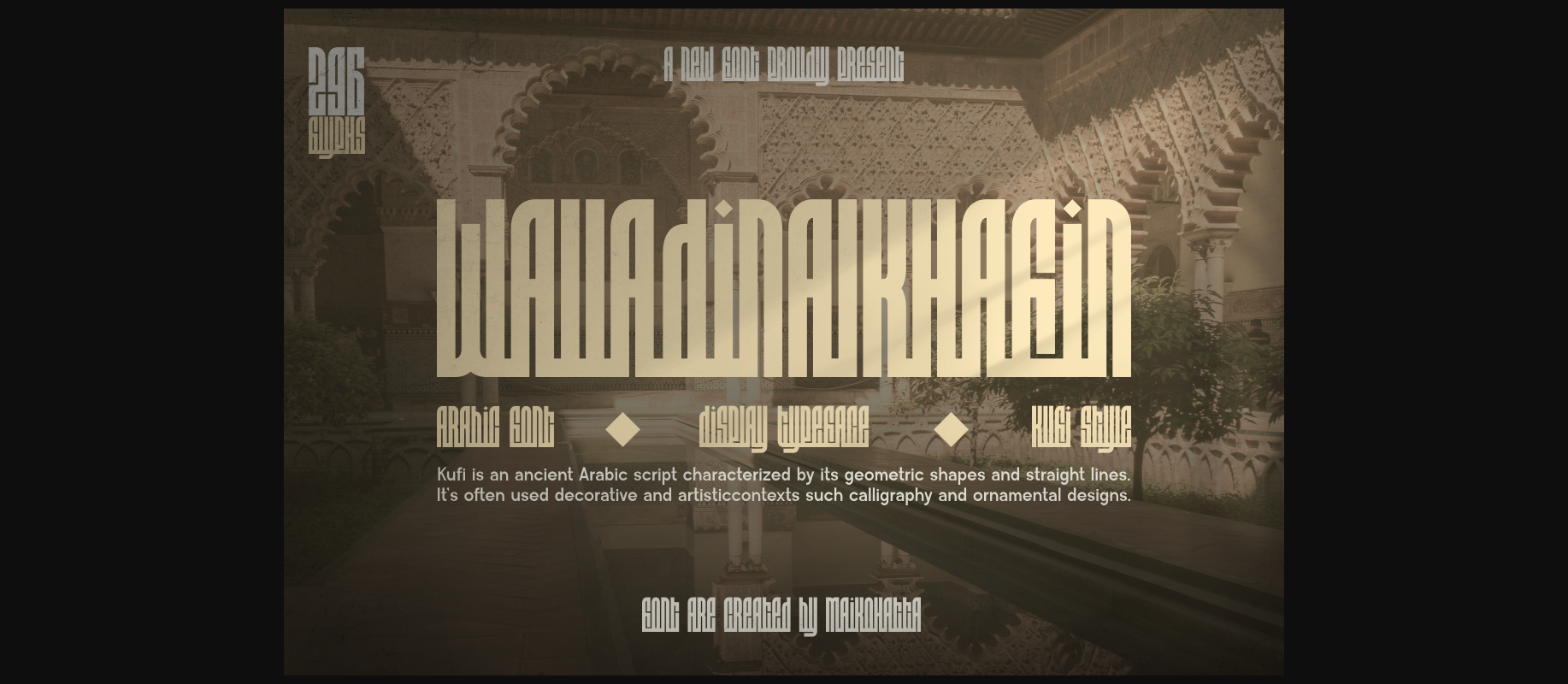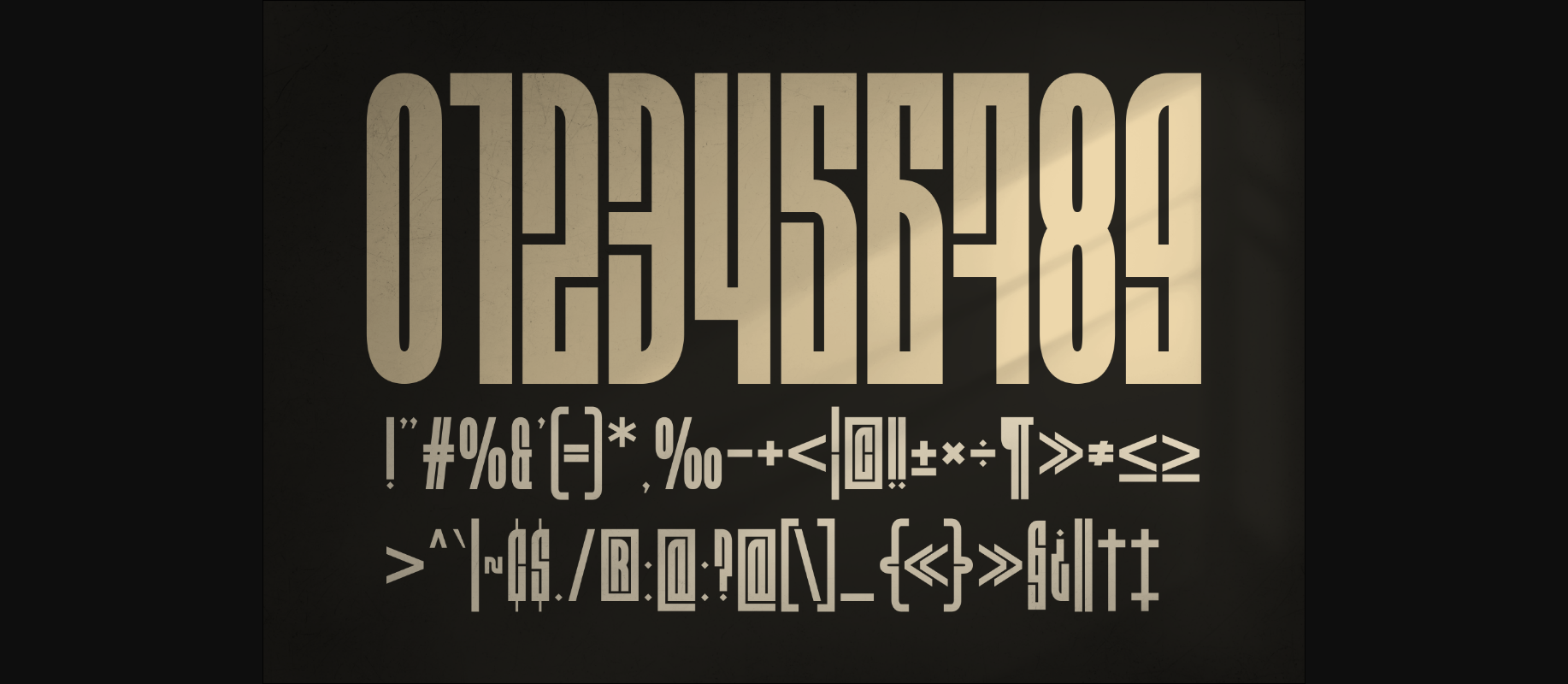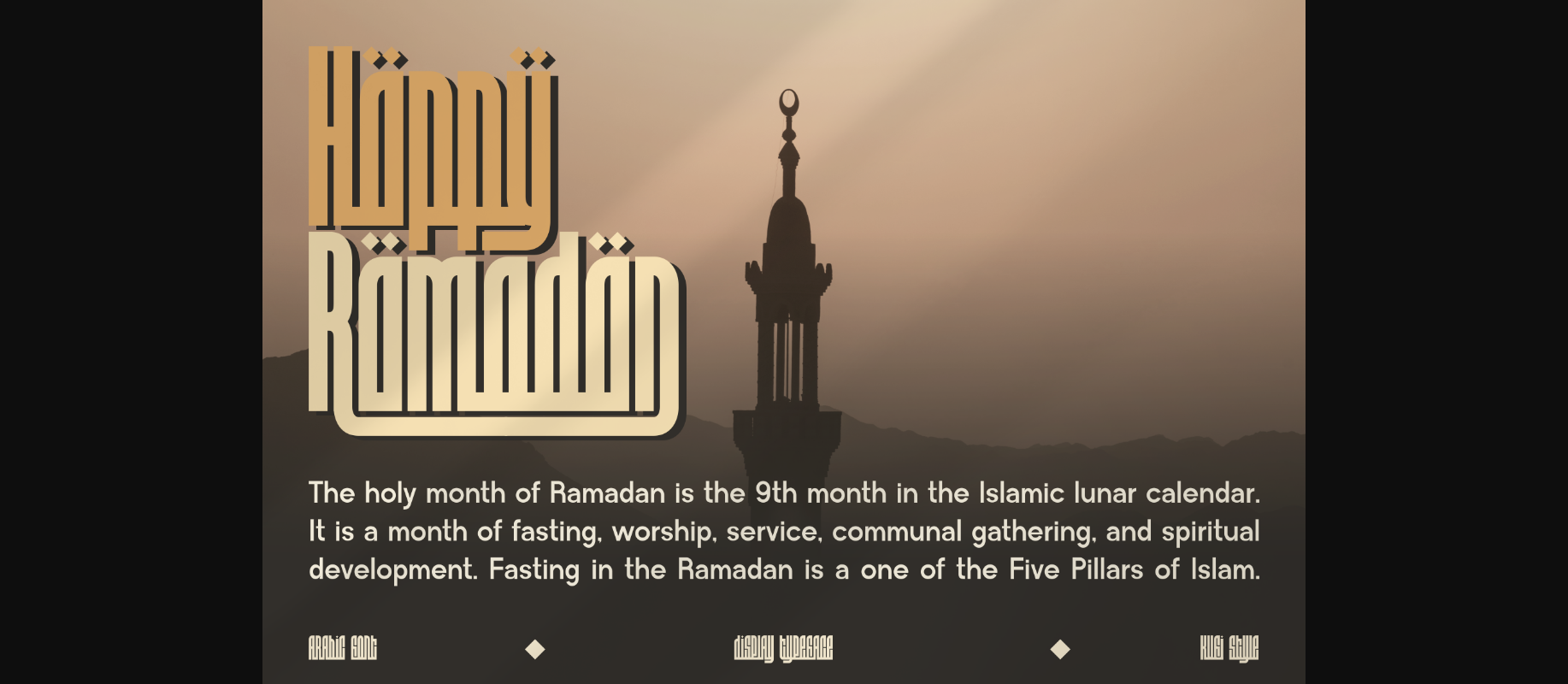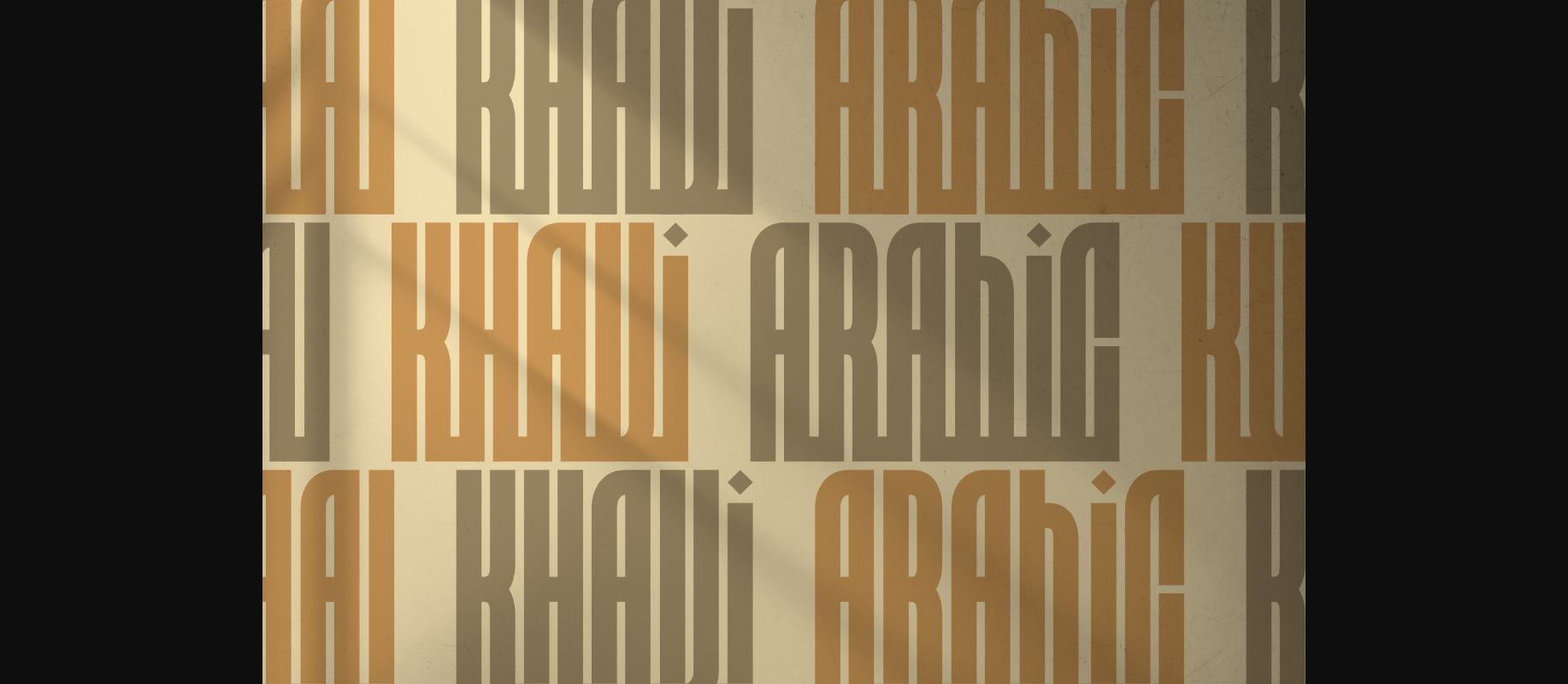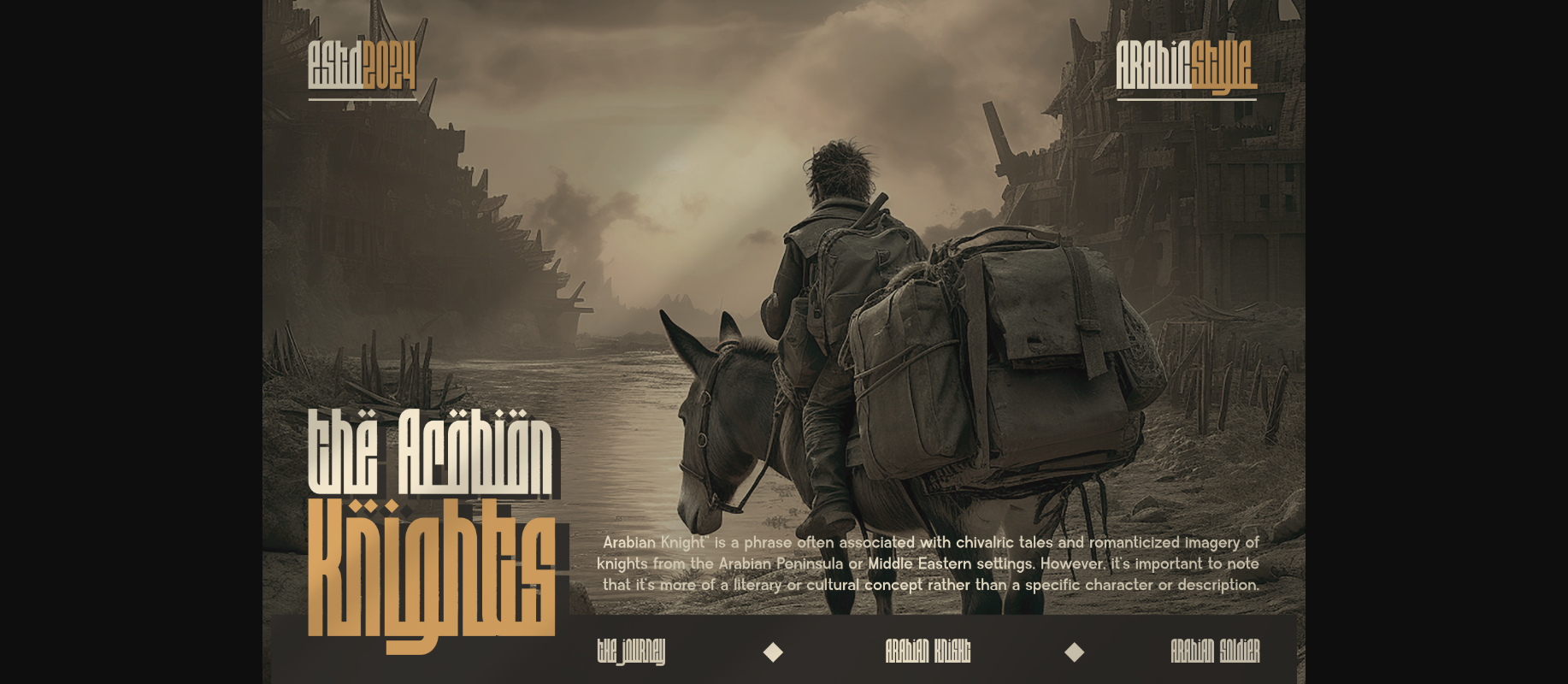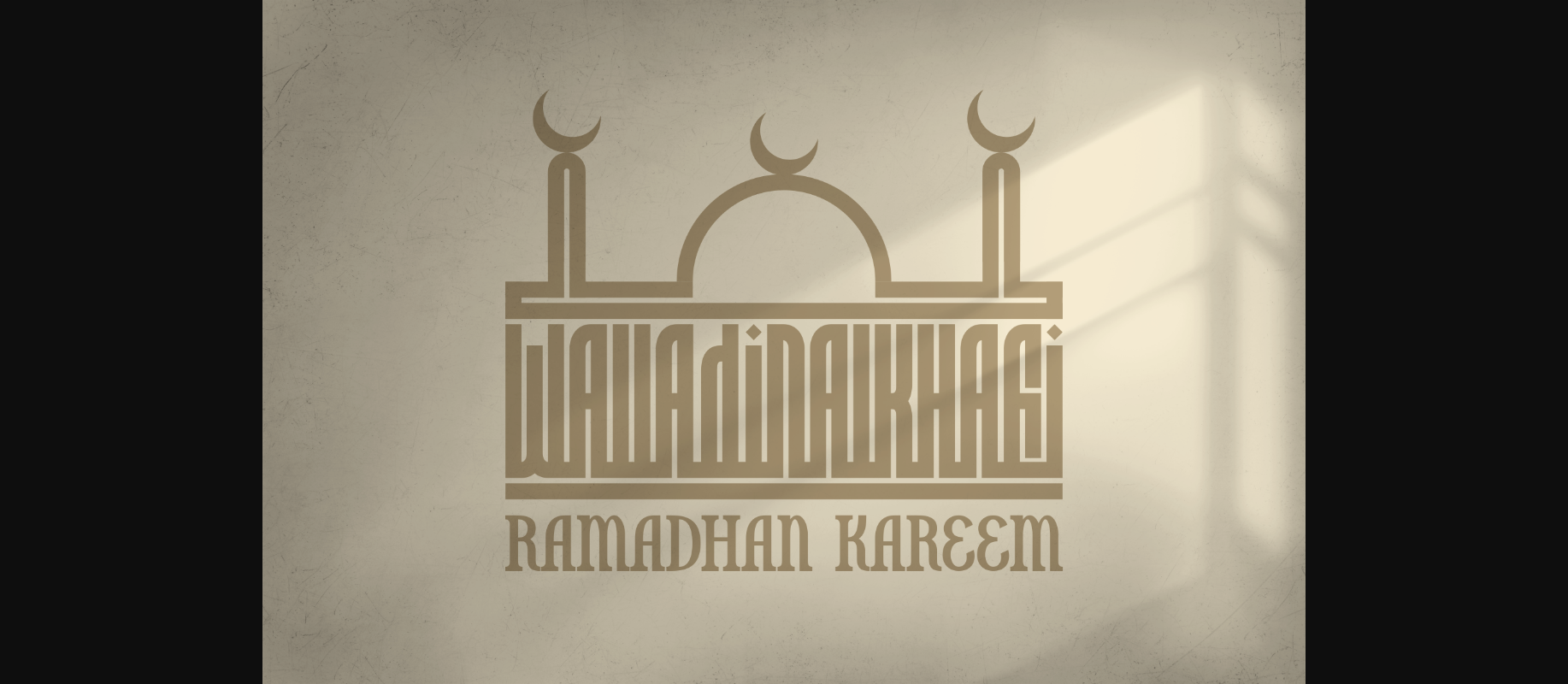
Walladinalkhafin Font
About Walladinalkhafin Font
Walladinalkhafin is a bold and authentic Arabic styled decorative font. The font is suitable for any branding project like logos, template design,sports, invitations and so much more.